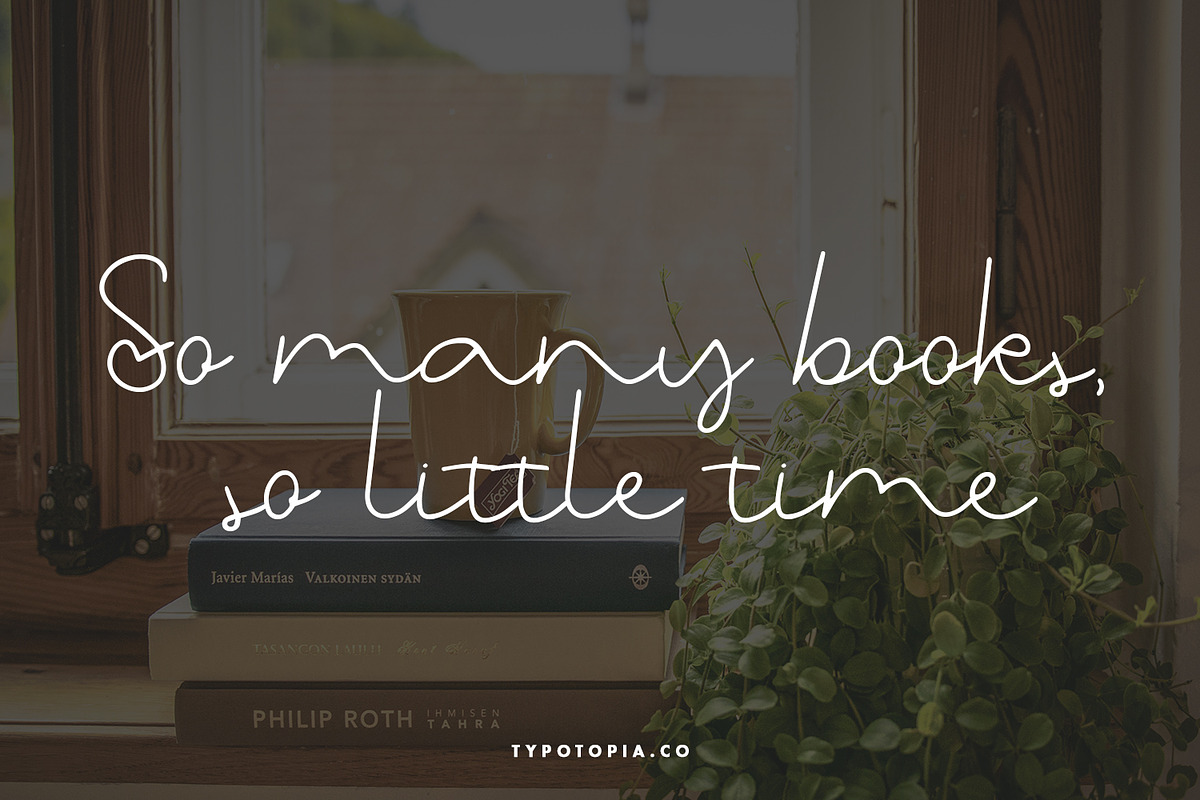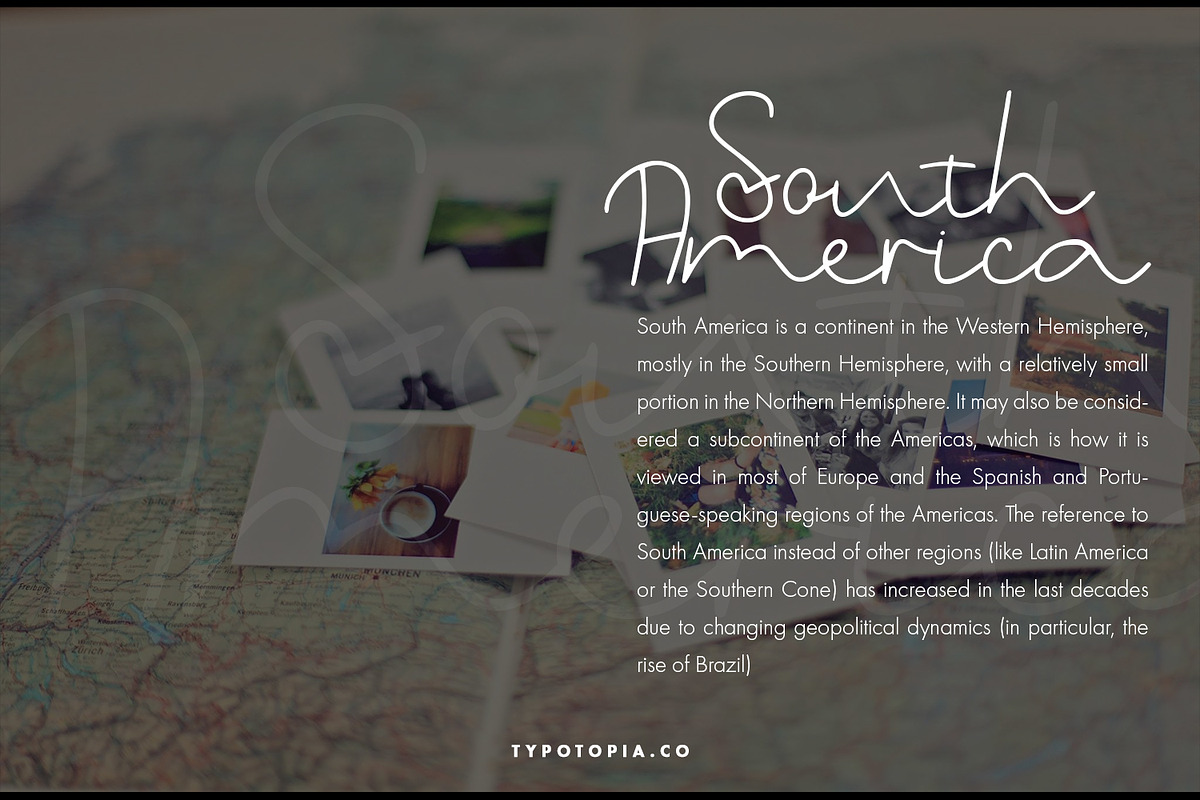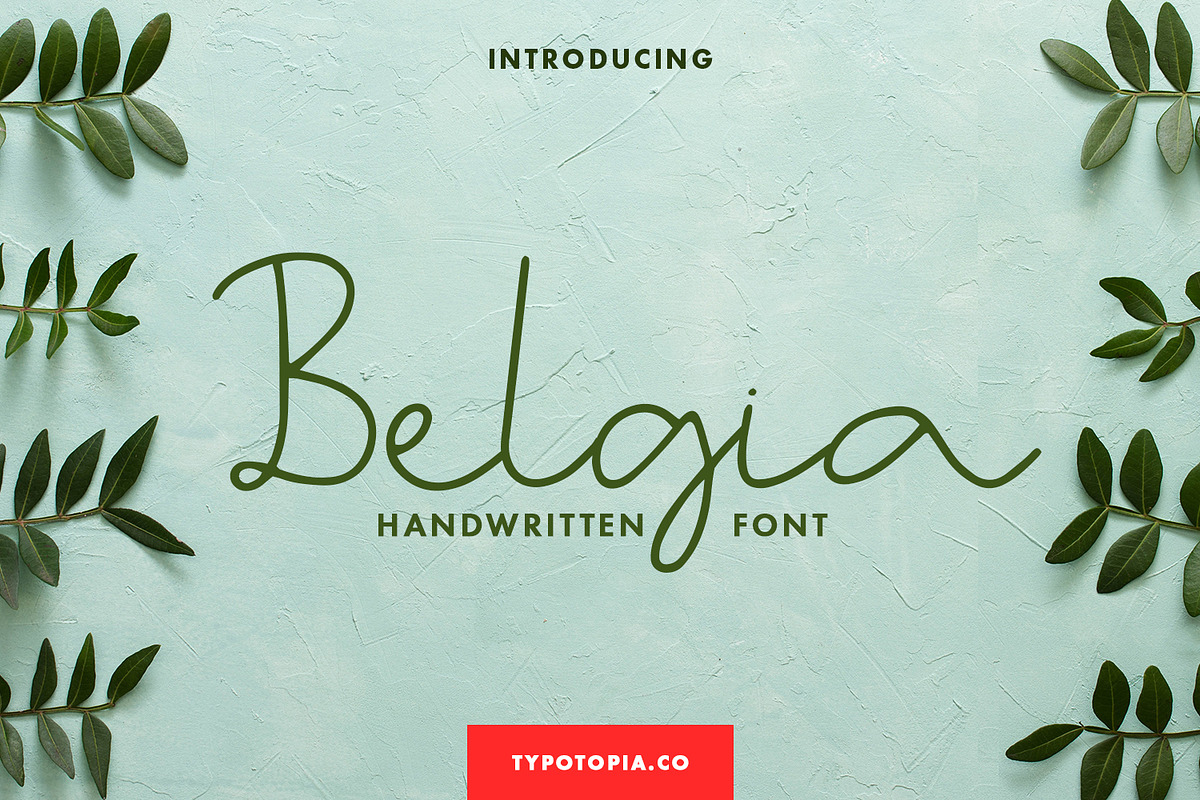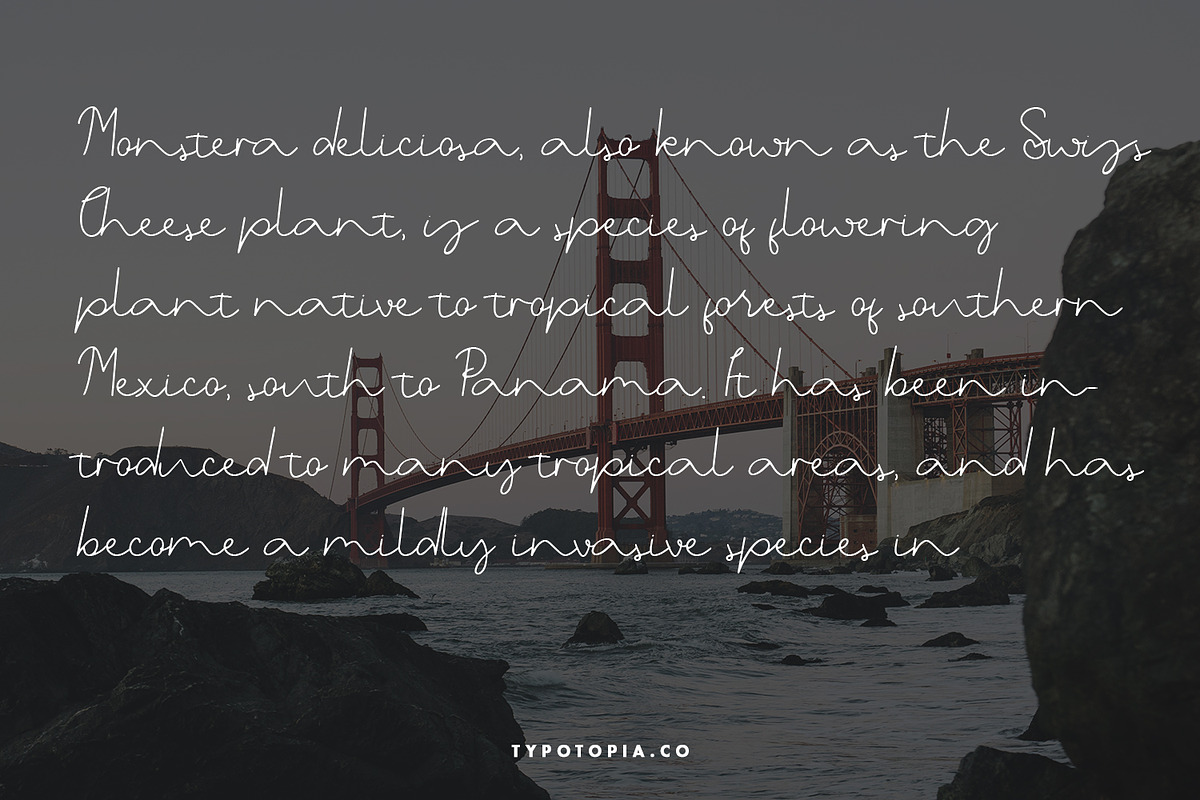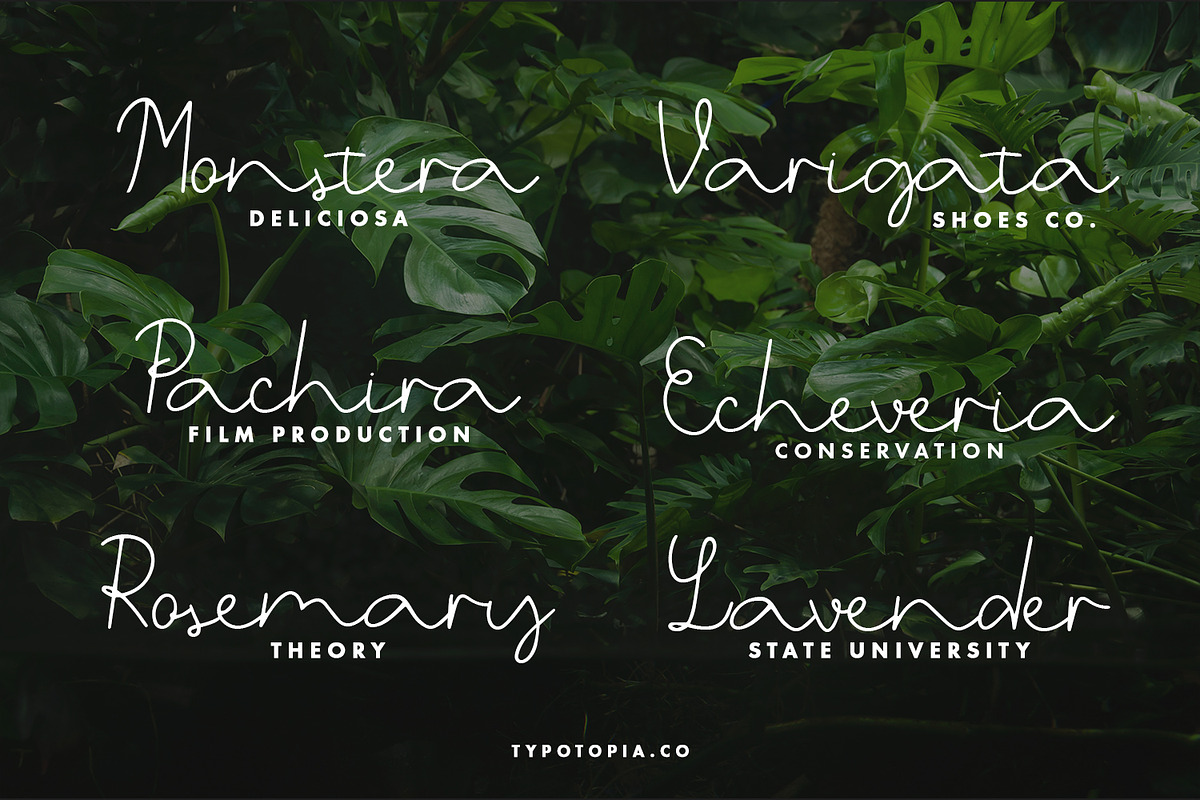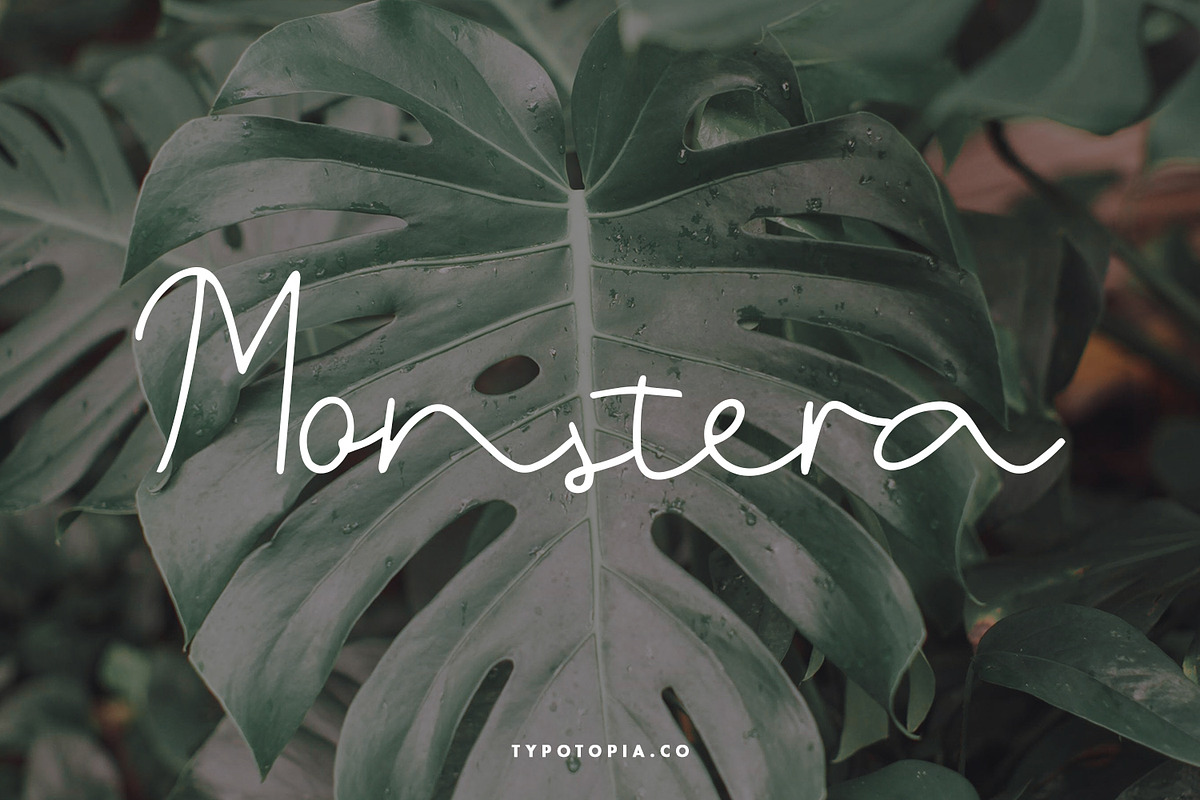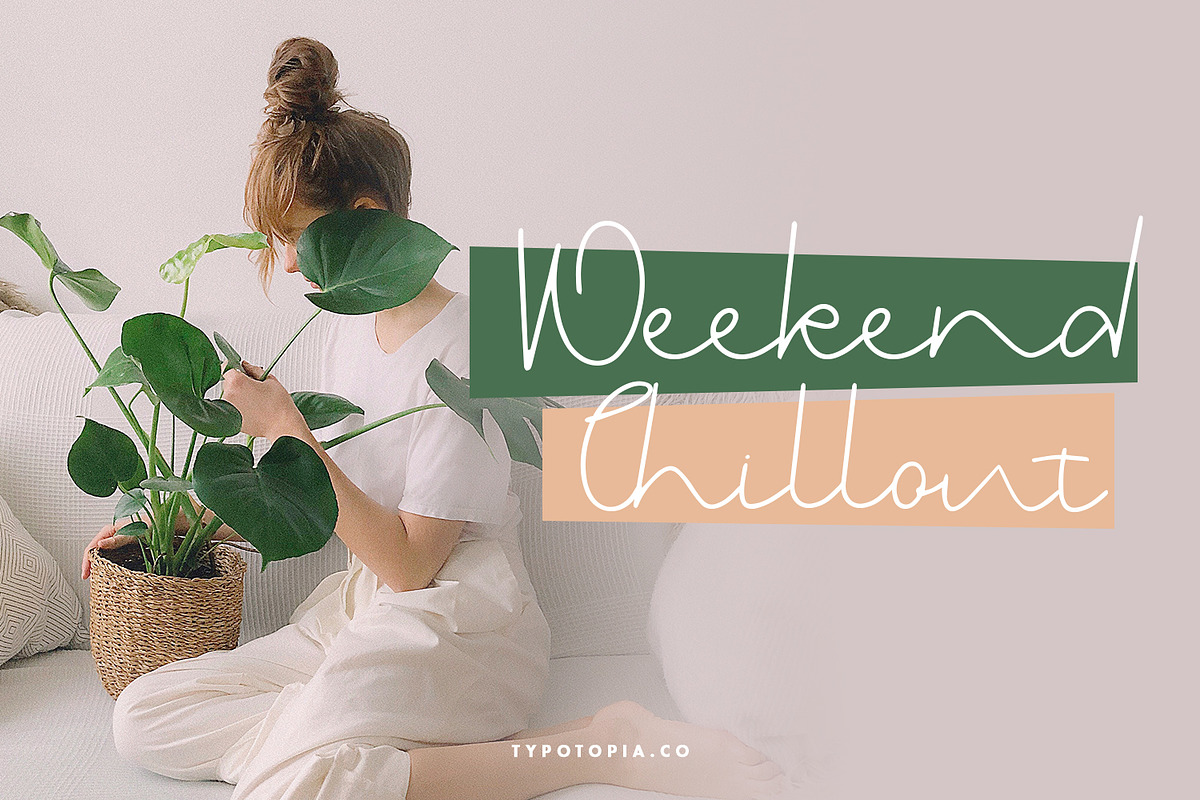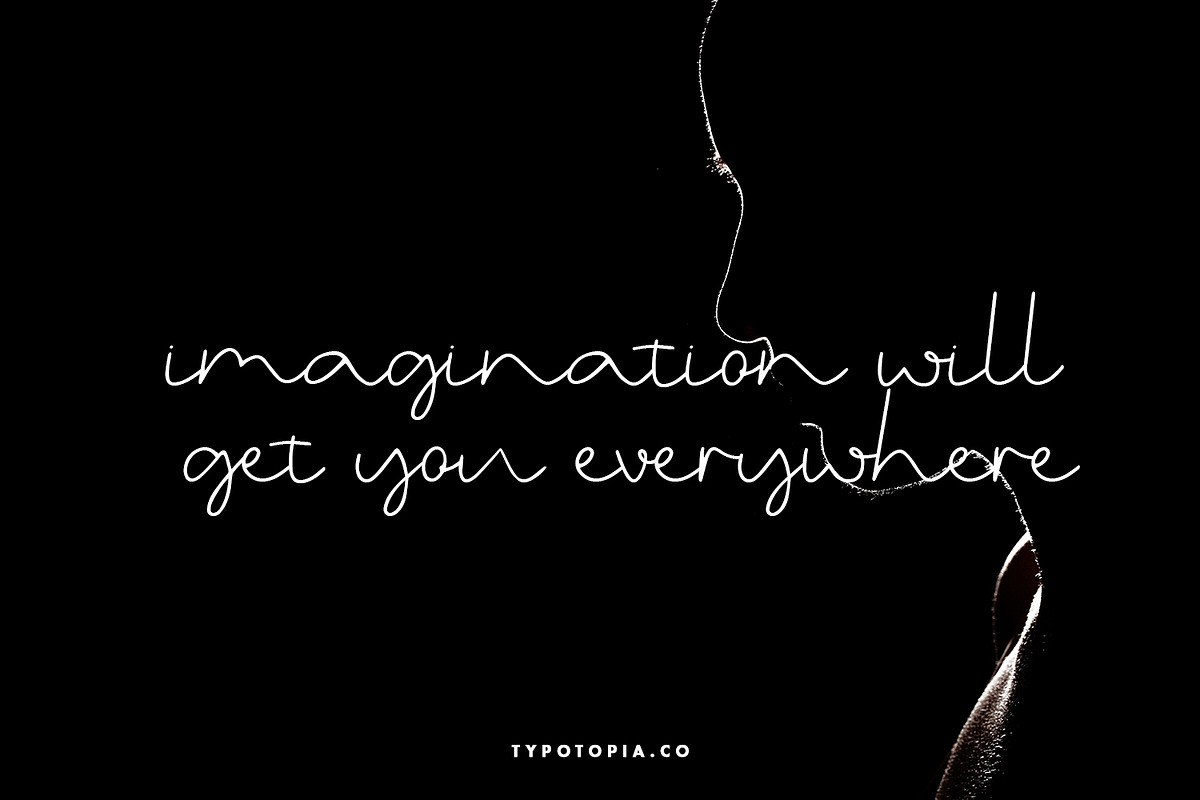
Belgia Handwritten Font
Typotopia Proudly Present The First Fonts made by Our Designers, BelgiaThe Stylish Handwritten Fonts. Every single letters have been carefully crafted to make your designs looks better.
Belgia Font is the great choice for several purpose, such as watermark, signature, signature-styled logo, business card design, quotes, album cover, invitation letter, stationery, and many other design project that need handwriting taste.
Belgia Handwritten Script also Support Multilingual Feature for Foreign Language, here’s the list :
áäåãéèëìïîòöôøùüAÀÁÂÃÄÅEÈÉÊËIÌÍÎÏNÑOÒÓÔÕÖUÙÜÚÛYÝŸ?Ÿ
What are the main Features on This Fonts :
Uppercase & Lowercase letters
Ligatures (Come in Next Update)